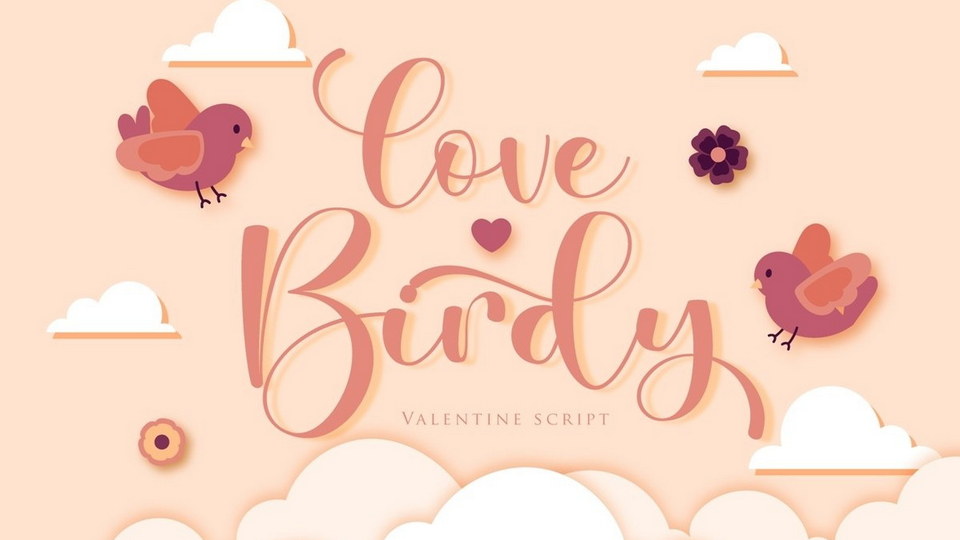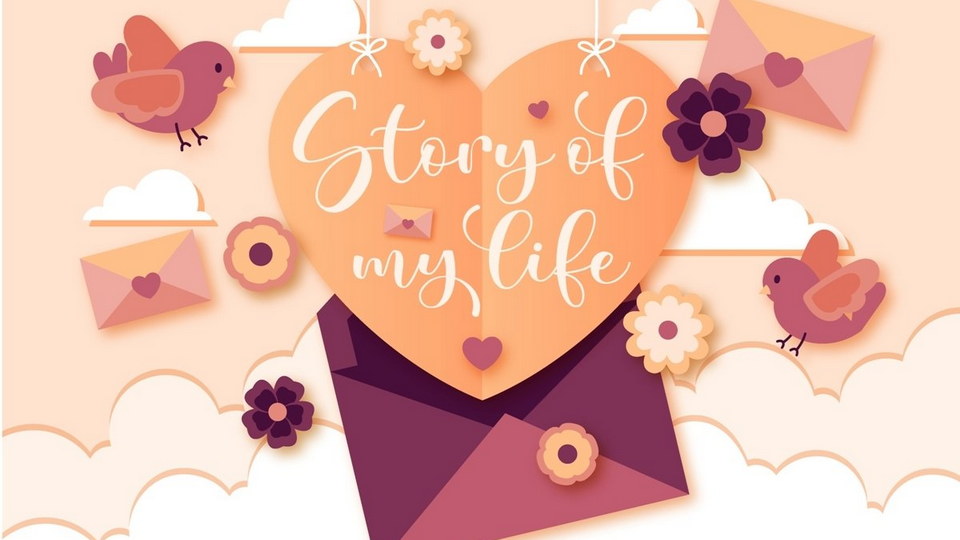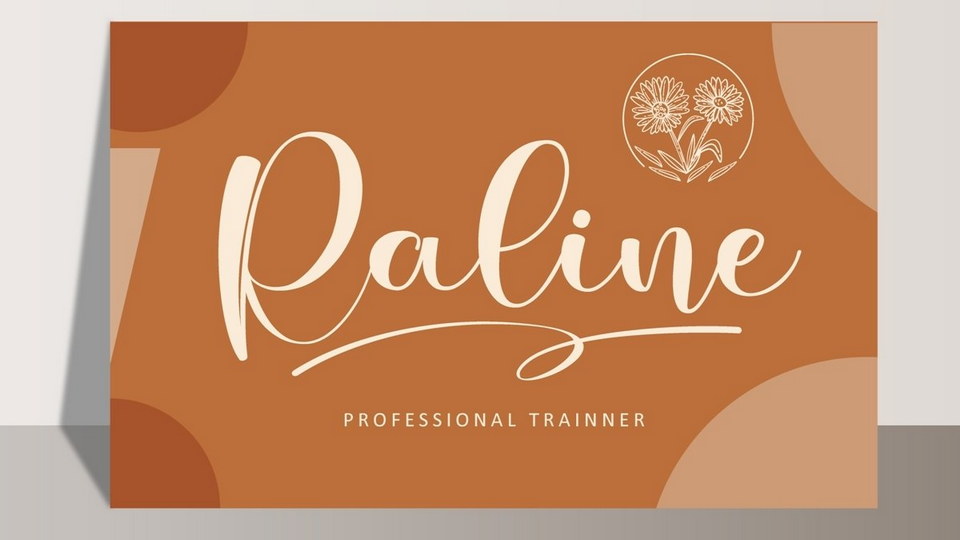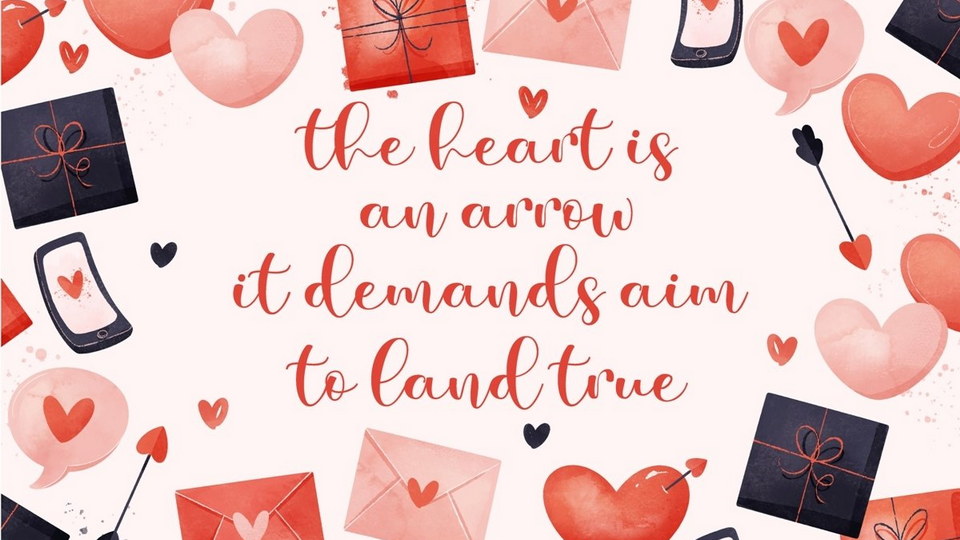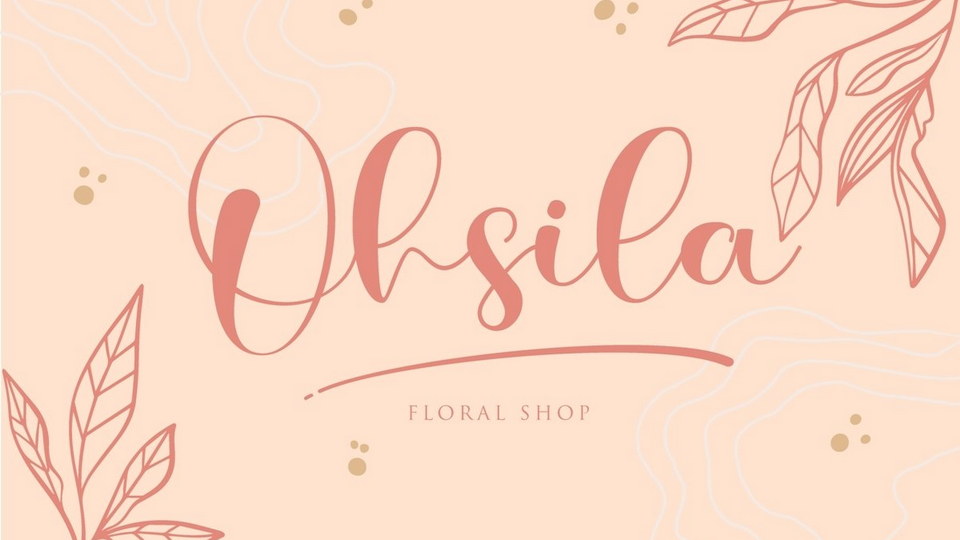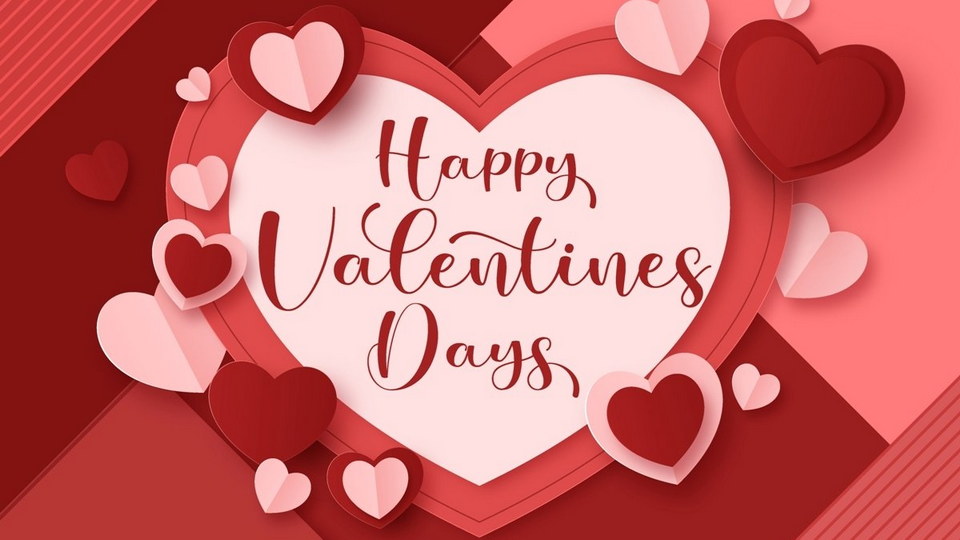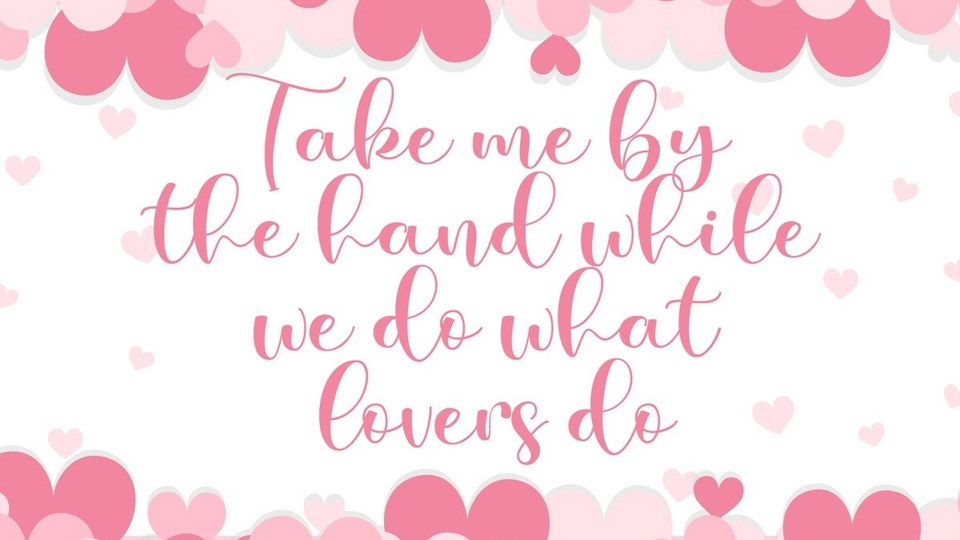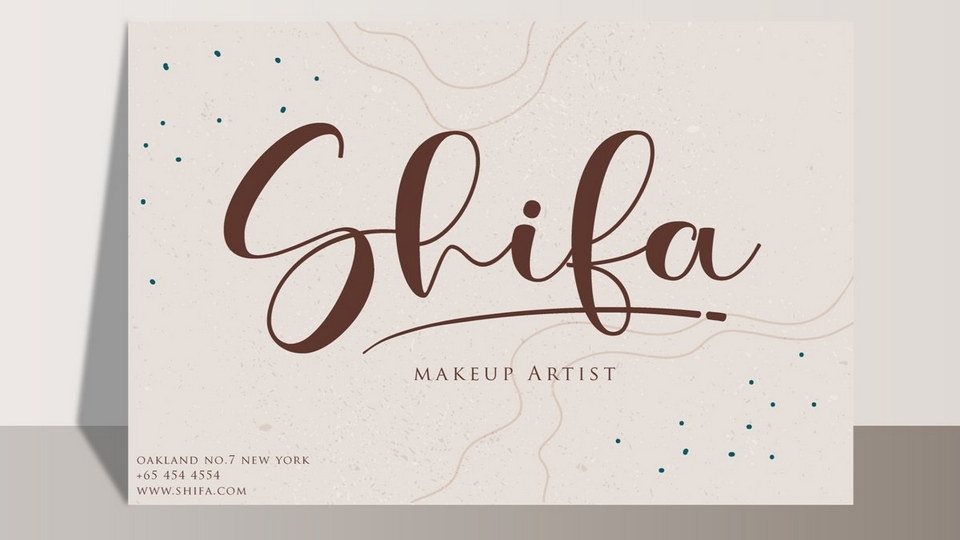
Love Birdy is a romantic and flowing handwritten font created with love. It looks beautiful on a variety of designs requiring a personal touch, such as wedding invitations, Valentine gifts, greeting cards, logos and so on.